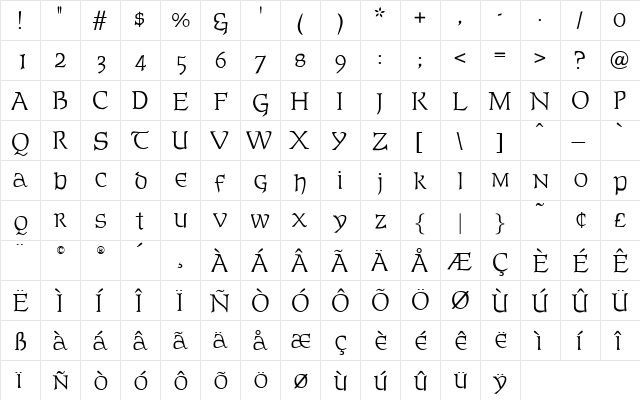
OPTIFurst Medium
Design Context for OPTIFurst Typeface
OPTIFurst is a composed and adaptable typeface that performs quietly and consistently across a wide range of design contexts.